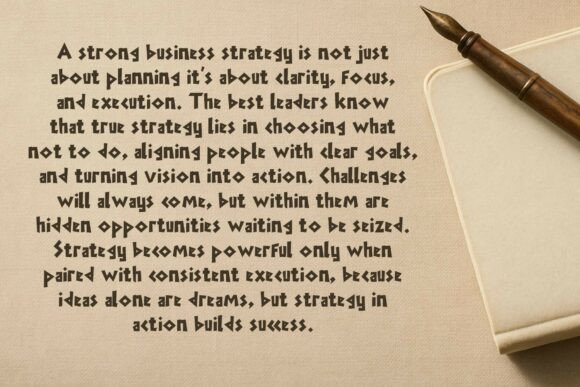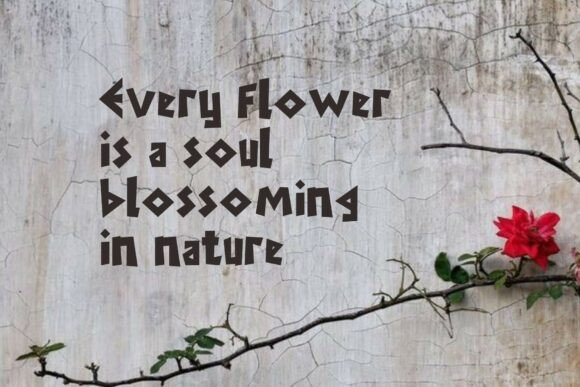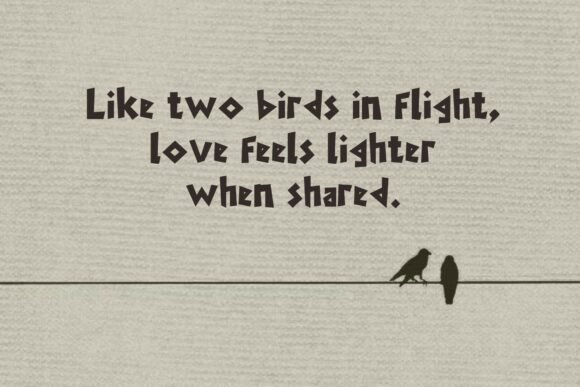
Introduction to Ehad Font
Ehad is a modern display font with a bold, sharp, and unconventional design.
It features strong geometric forms, angular cuts, and distinctive directional shapes that give the font a powerful and striking appearance The unique structure of each letter creates a sense of movement and intensity, making it highly eye-catching.
Key Features of Ehad Font
Why Choose Ehad Font?